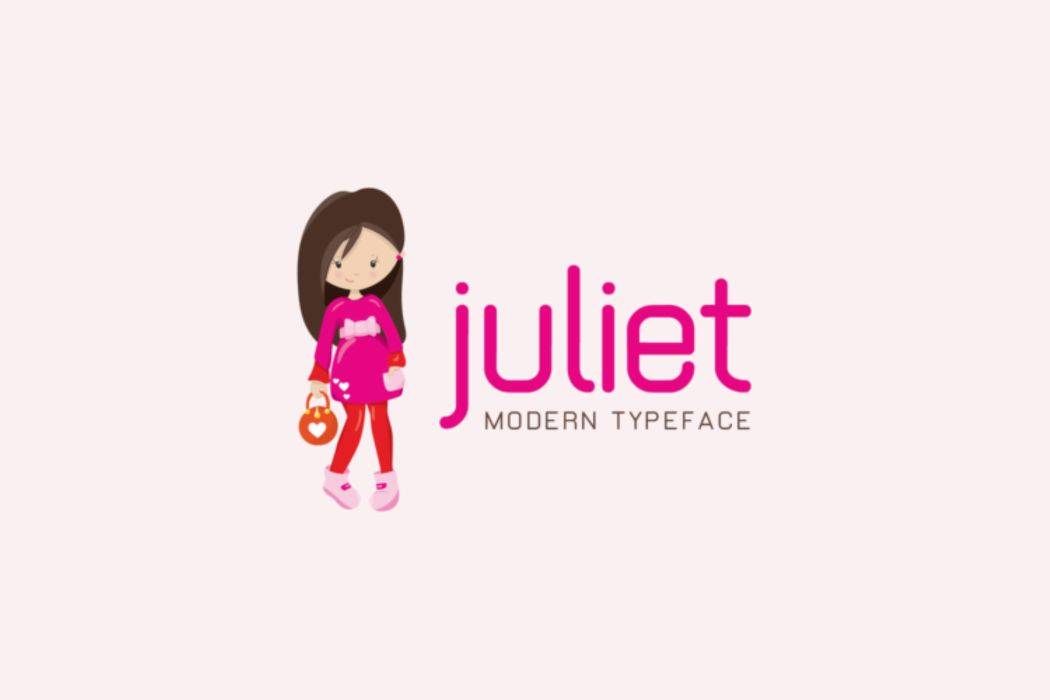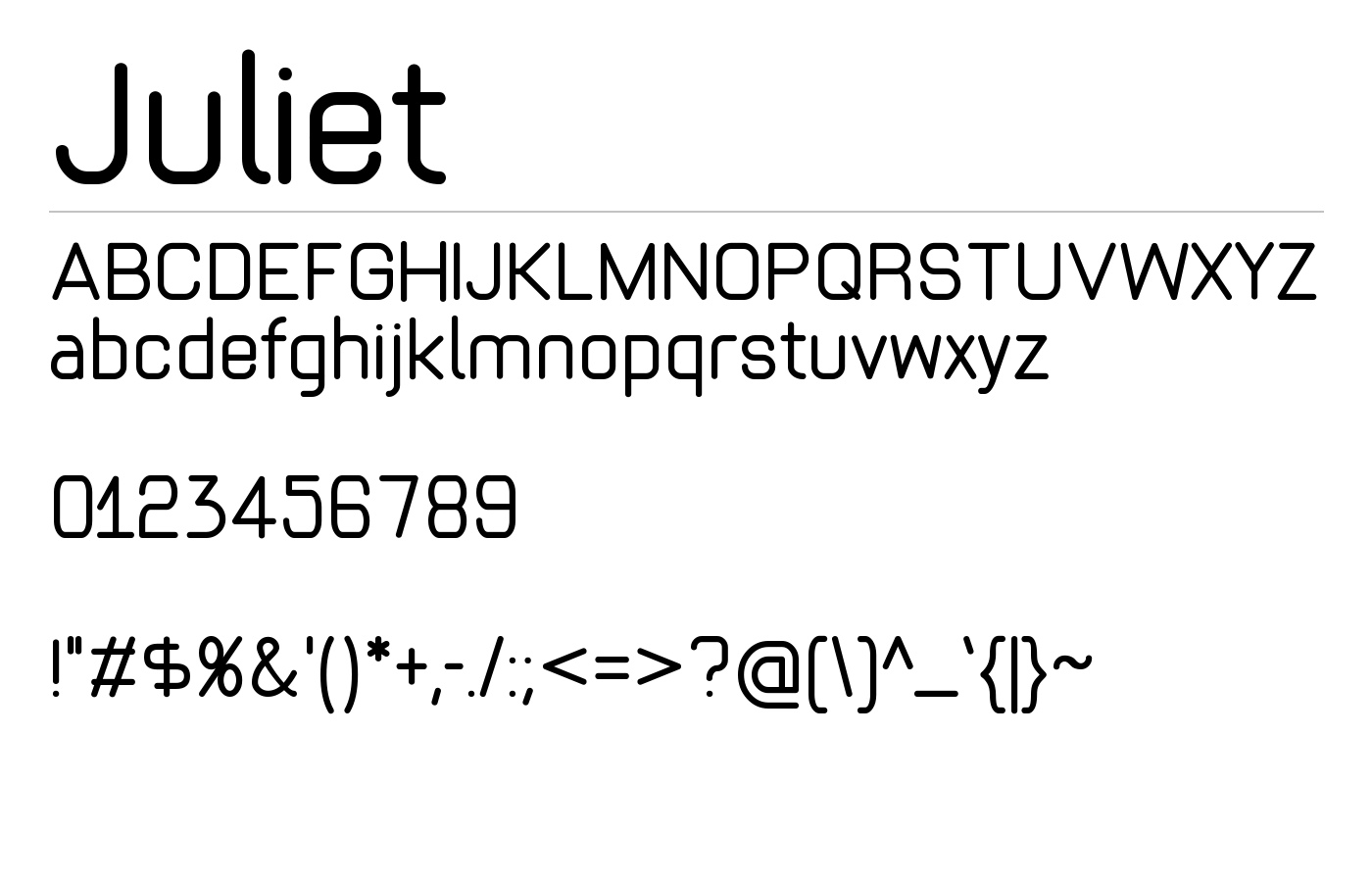
Juliet is a clean, modern sans serif font with a slightly condensed width and a uniform, medium weight that offers clarity and legibility. Its rounded corners and geometric shapes lend a friendly and approachable feel, making it well-suited for tech, editorial, and branding projects that require a contemporary yet personable tone. This font works best in headlines and user interfaces where readability and a sleek, modern aesthetic are key.
Juliet Font
About Juliet Font